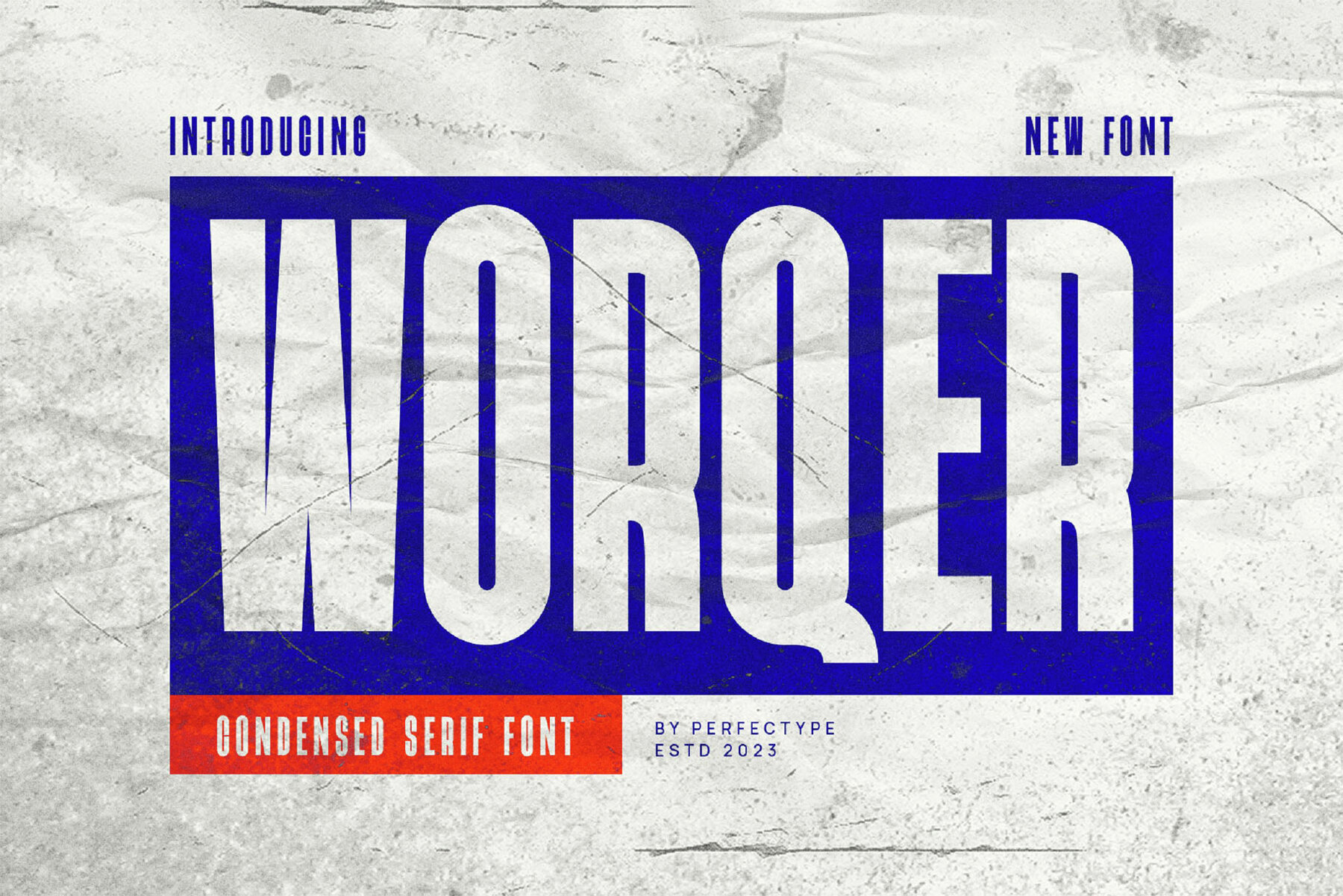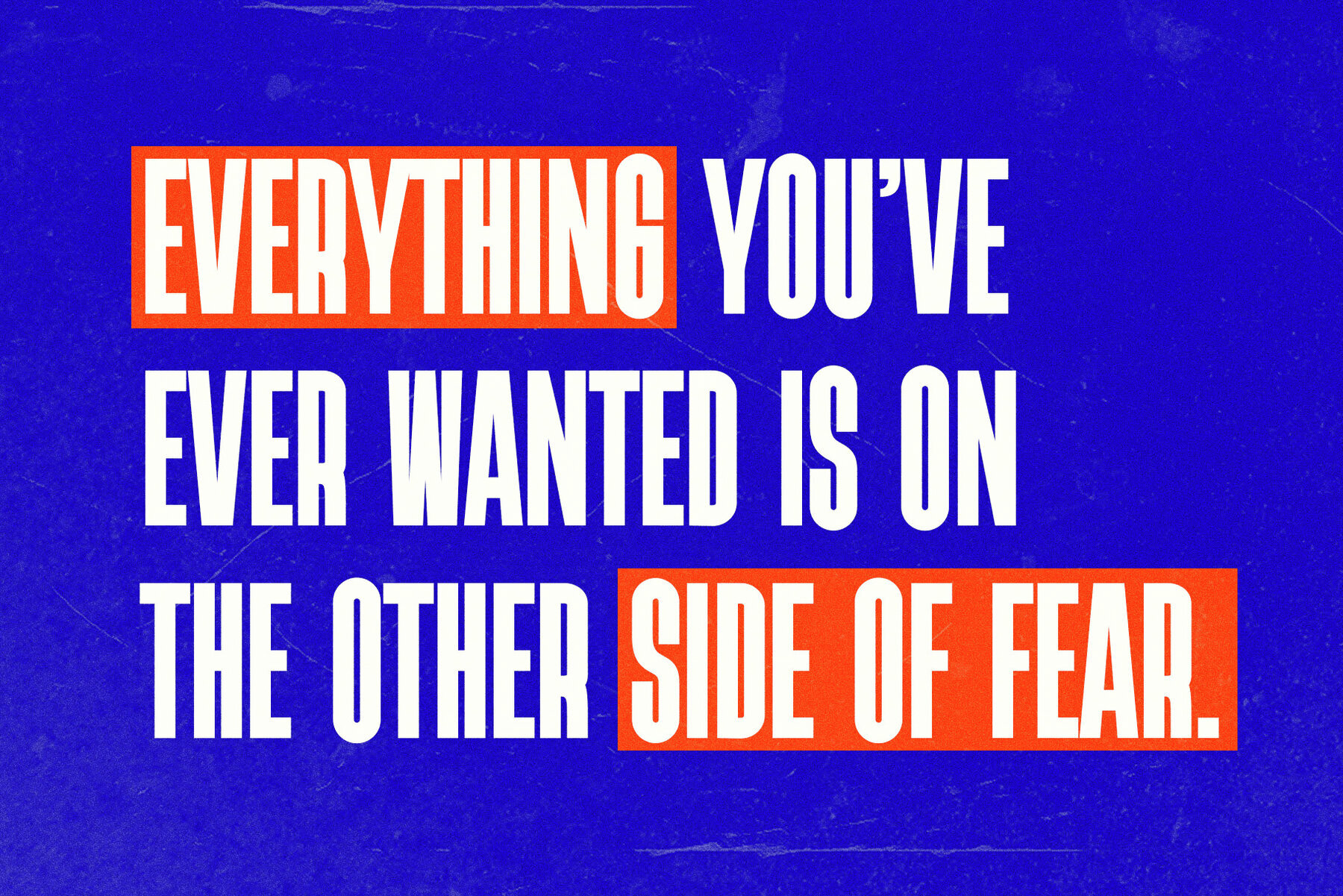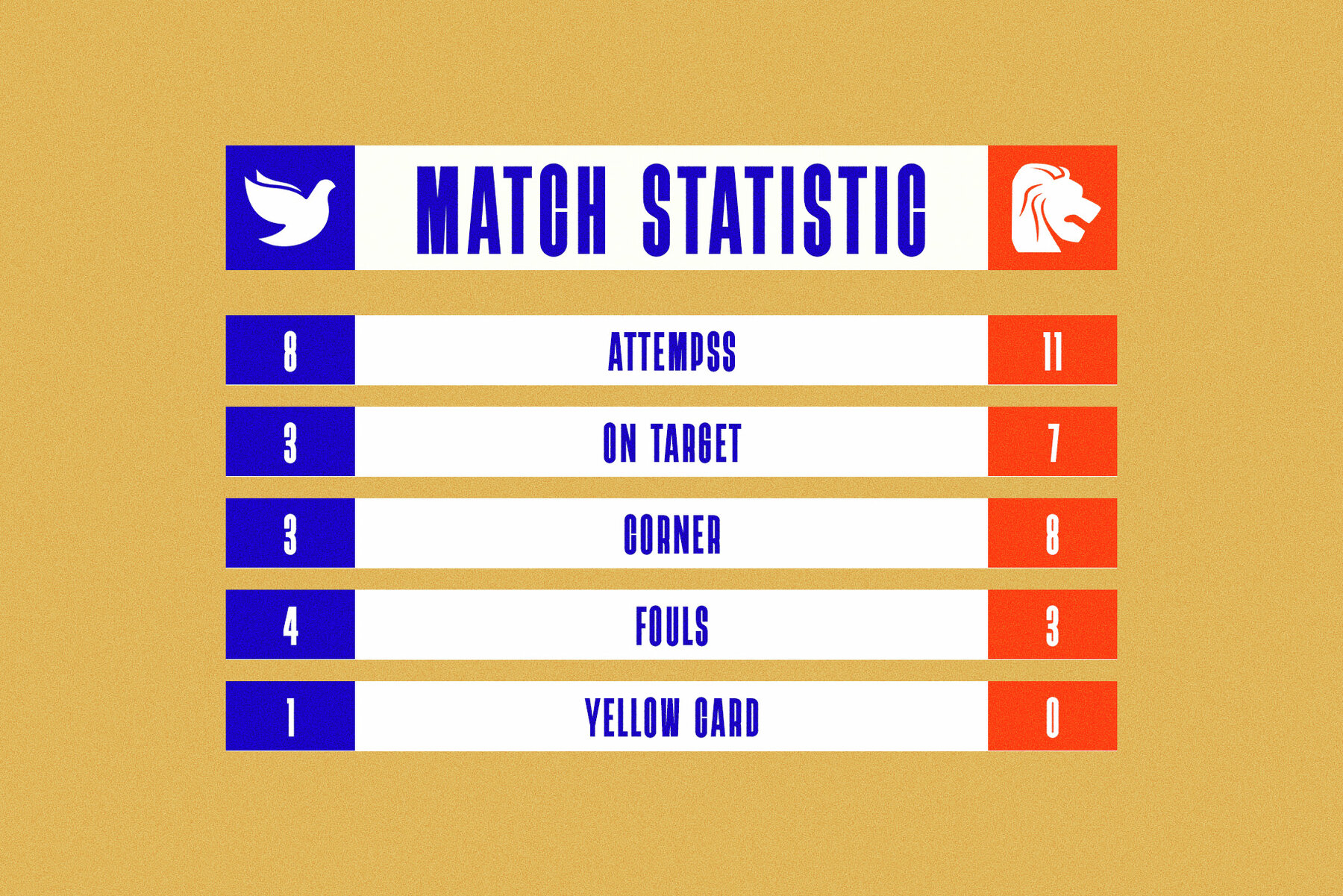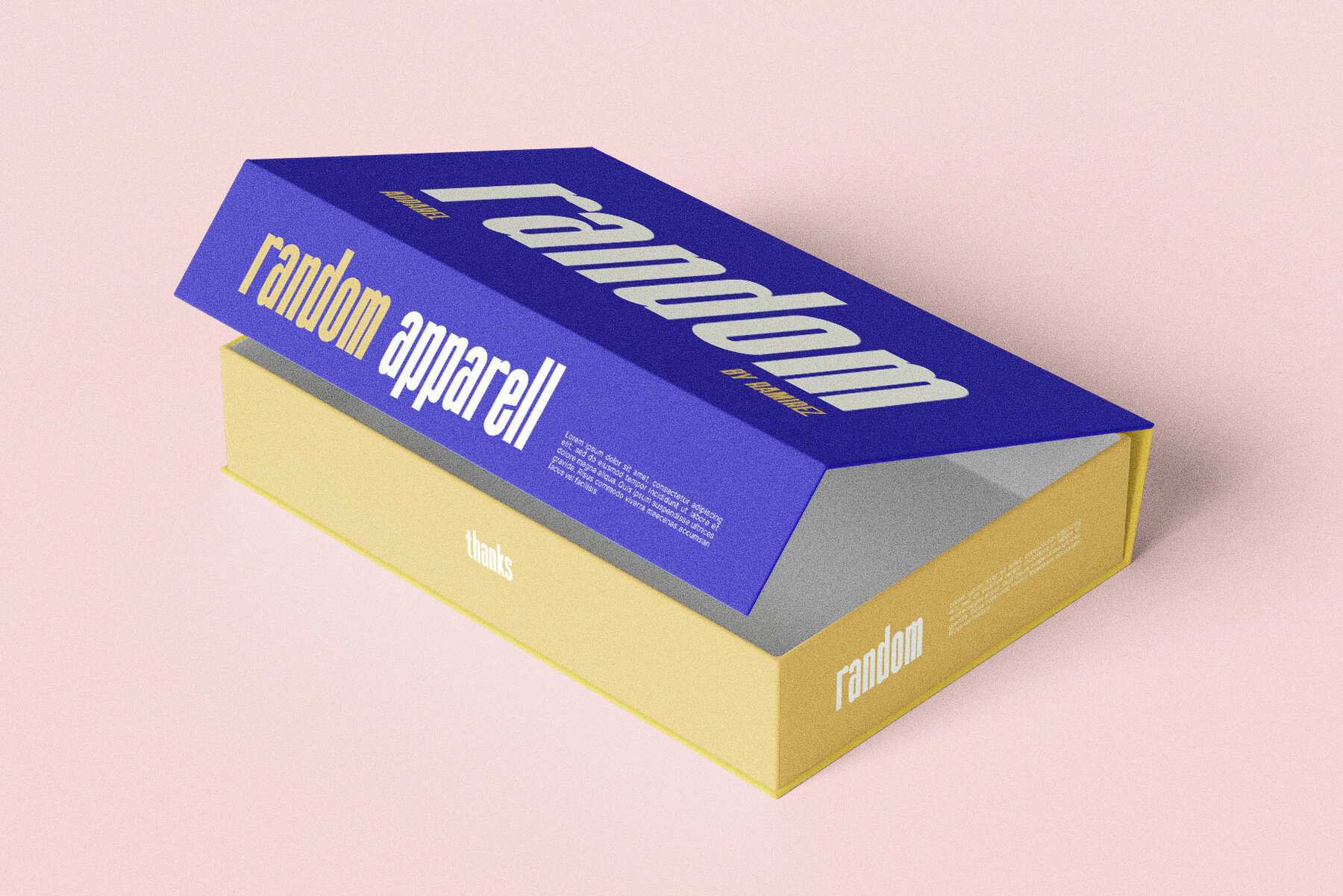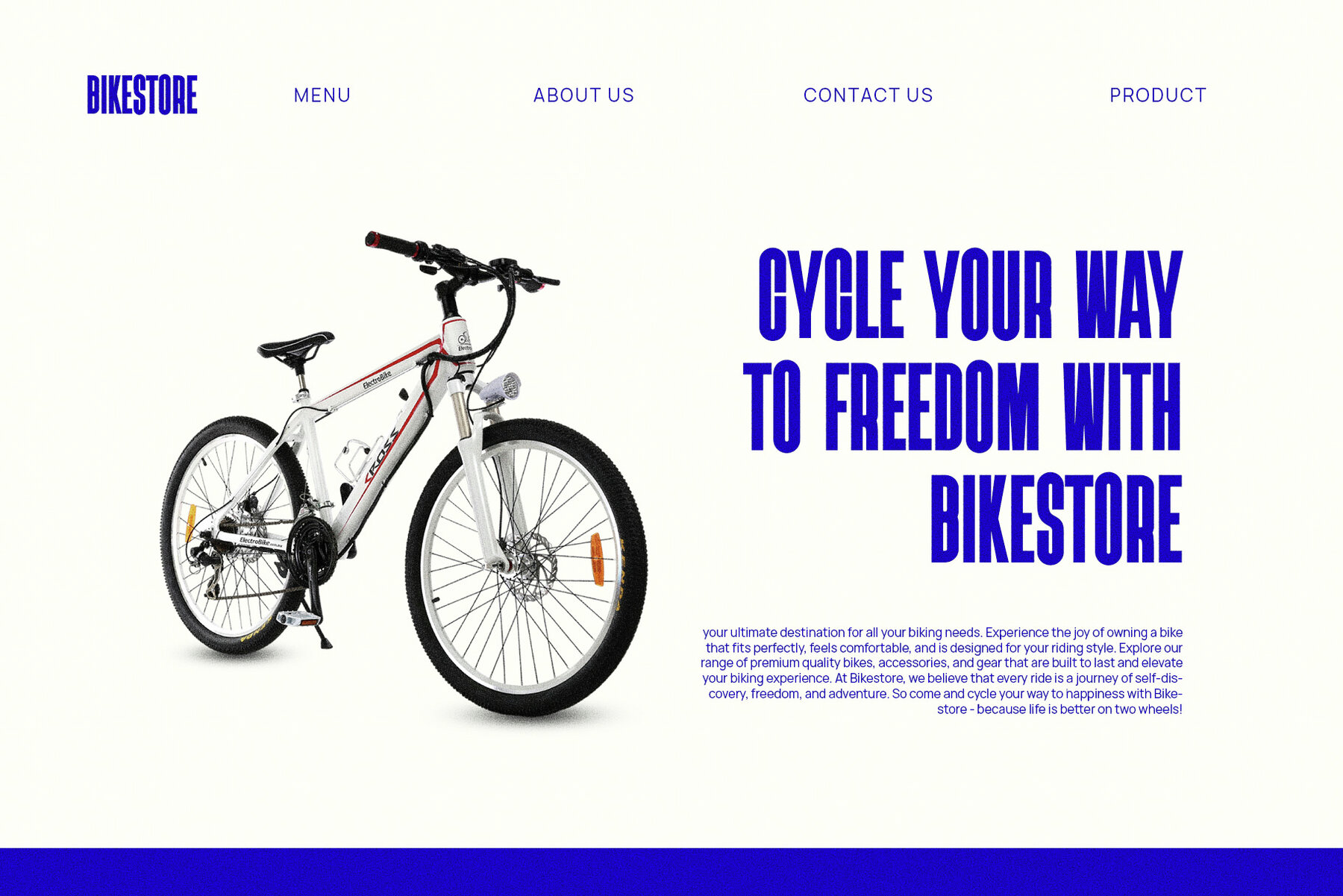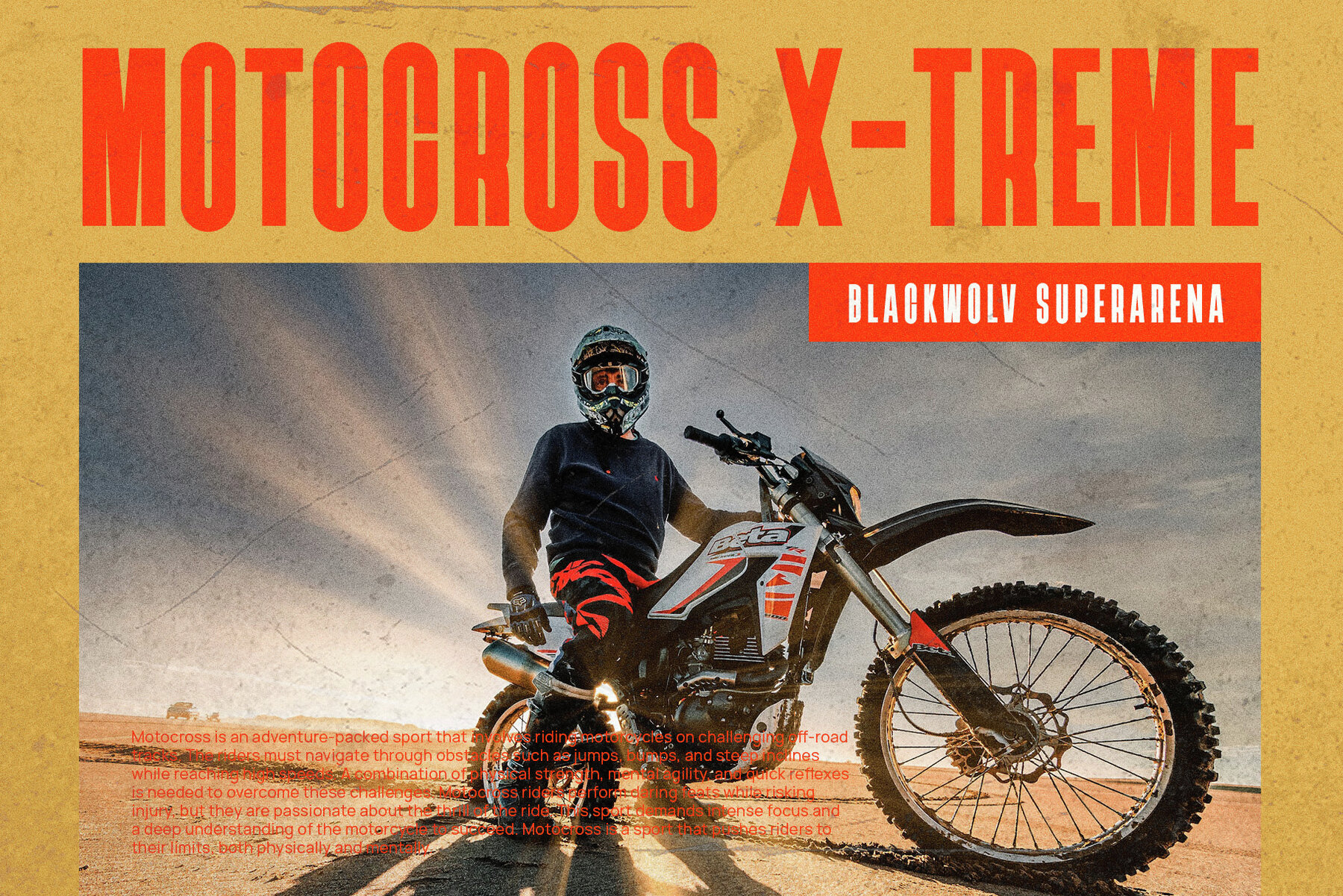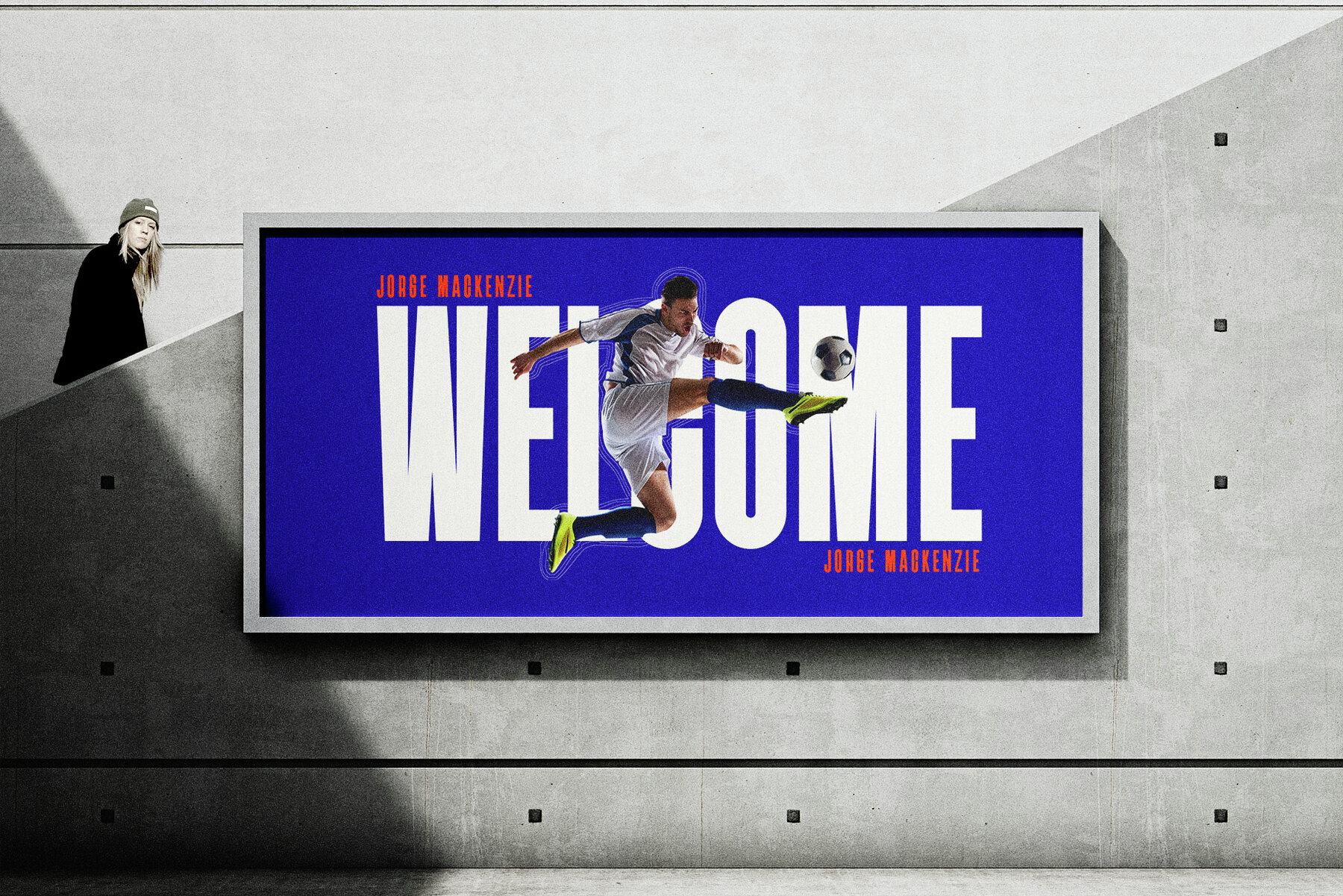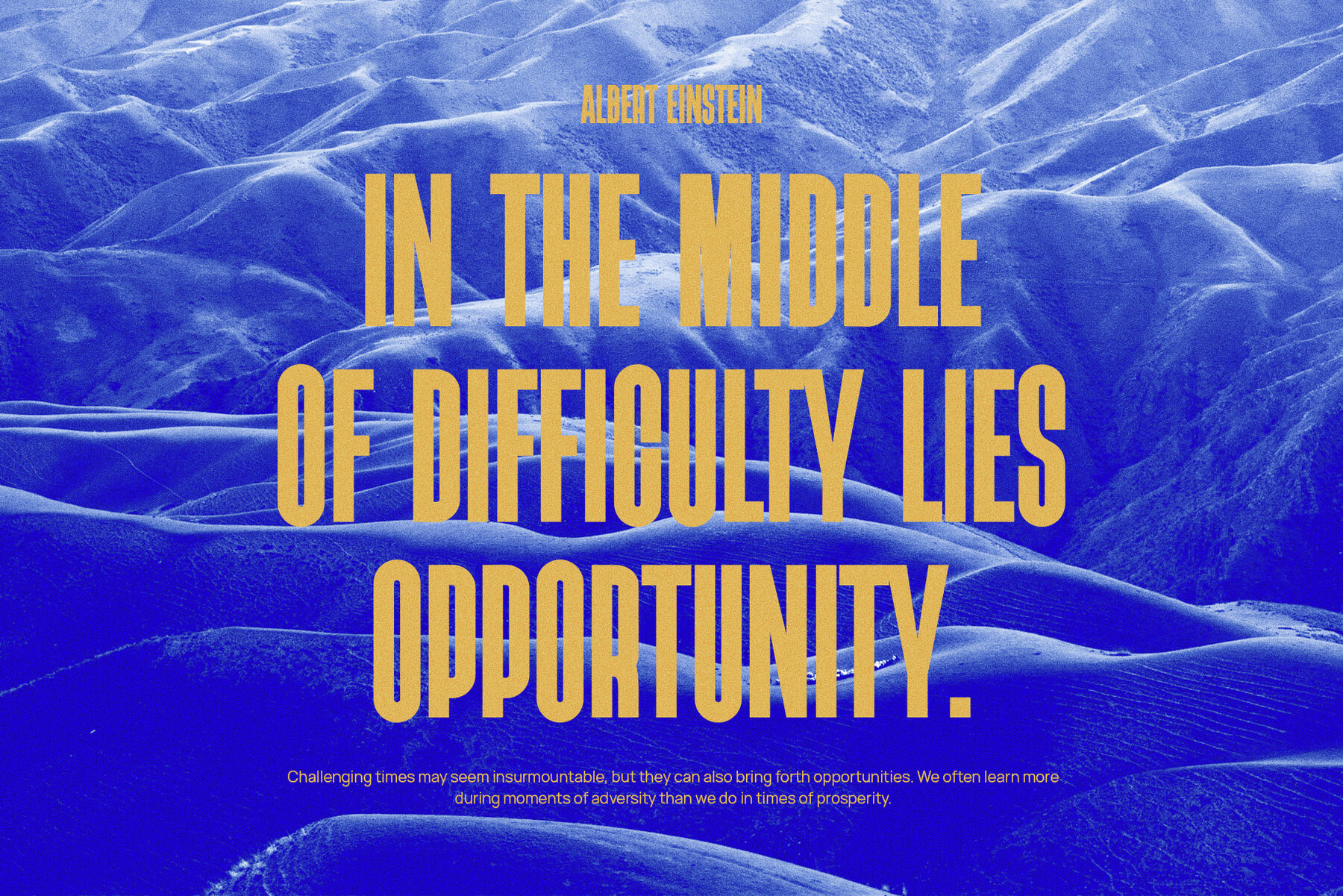
Worqer Font
Worqer Regular
Worqer by Perfectype Studio is a sans serif font crafted with an emphasis on balance and high readability. Designed with precision and attention to detail, this font is ideal for all your branding needs. Whether you're working on brochures, videos, advertisements, logos, magazines, layouts, posters, templates, or games, Worqer provides the clarity and style you require. For optimal results, using Adobe Illustrator or Adobe Photoshop is recommended. If you have questions or need assistance, feel free to reach out; we're here to help.Worqer: A Balanced Sans Serif for Clear Communication